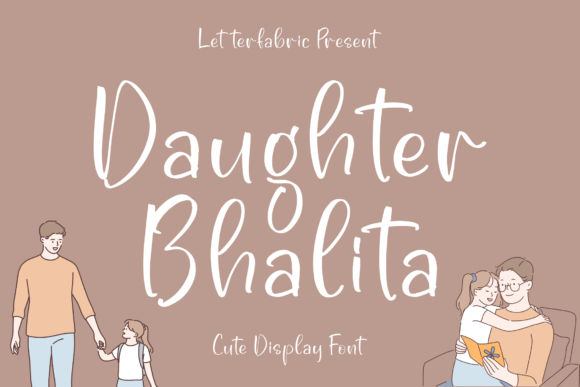
Dive into the world of Daughter Bhalita Font, a captivating script font family designed to evoke charm and authenticity in your creative endeavors. Crafted by the skilled hands at Letterfabric, this font is not just a collection of characters; it's an invitation to express your individuality with a touch of elegance and playfulness.
Daughter Bhalita Font is more than just a font; it's an extension of your creativity, a tool that empowers you to transform ordinary words into captivating expressions. Whether you're designing logos, embarking on branding projects, or creating eye-catching homeware designs, this font is your perfect companion. Its versatility knows no bounds, adapting seamlessly to product packaging, mugs, quotes, posters, shopping bags, and t-shirts.
Imagine your designs adorned with Daughter Bhalita Font, exuding a sense of warmth and inviting charm. Book covers, name cards, invitation cards, greeting cards, labels, and photography all come alive with a touch of this font's magic. It's the perfect choice for special events, adding a touch of sophistication and personality to every occasion.
With Daughter Bhalita Font, your designs will exude a timeless appeal, captivating your audience with its effortless elegance. Its graceful curves and playful strokes create a visual symphony, transforming ordinary text into works of art. Whether you're a seasoned designer or just starting your creative journey, this font is your secret weapon to unlock a world of captivating designs.
So, embrace the Daughter Bhalita Font, let your creativity soar, and watch as your designs blossom into masterpieces that leave a lasting impression.